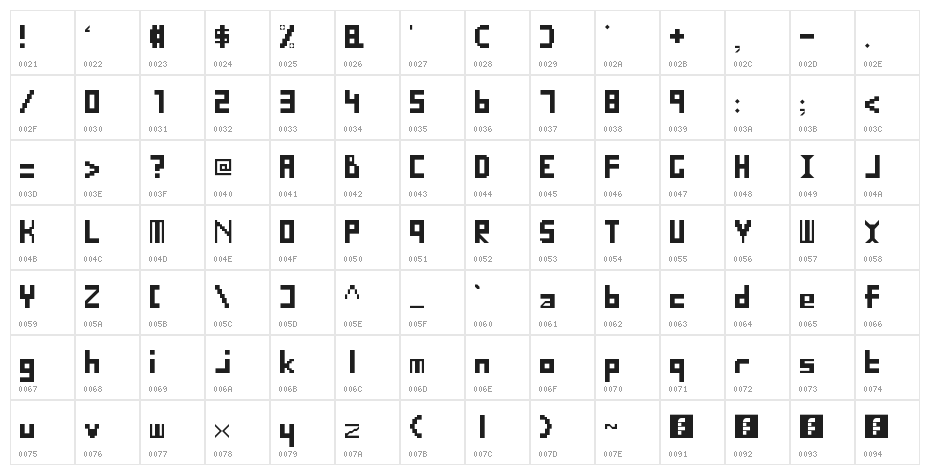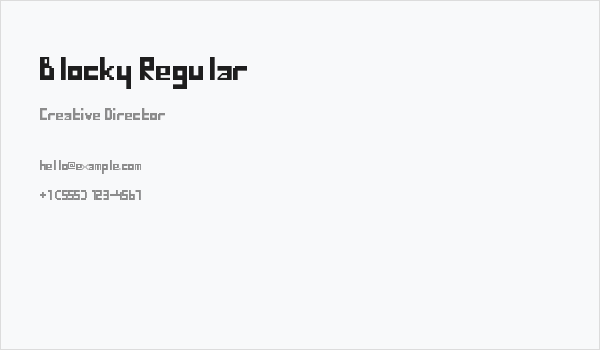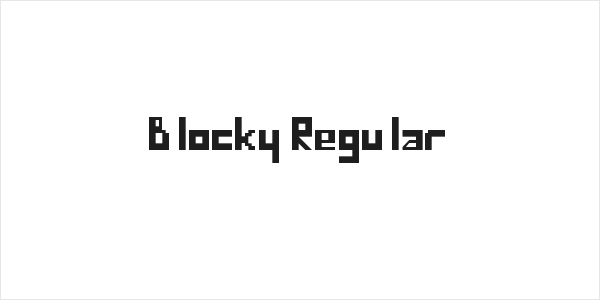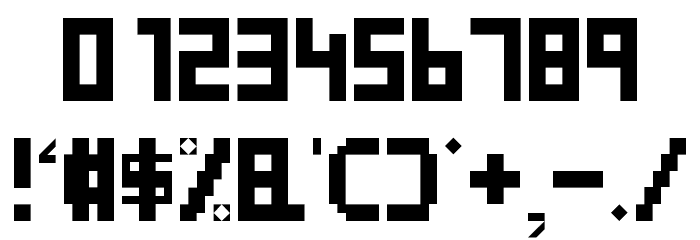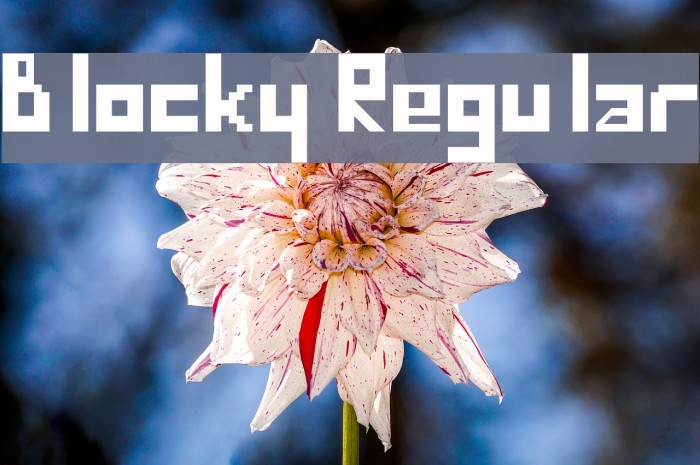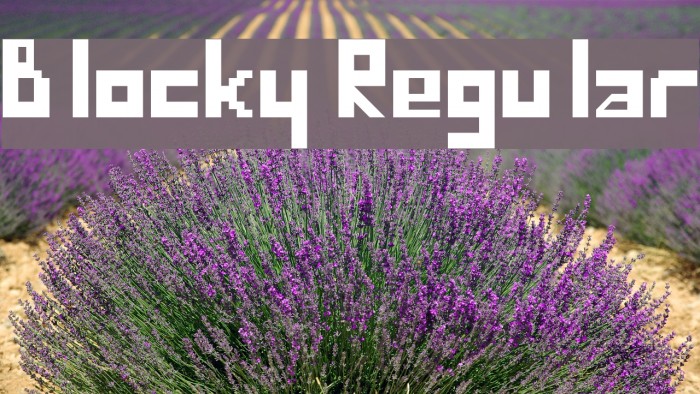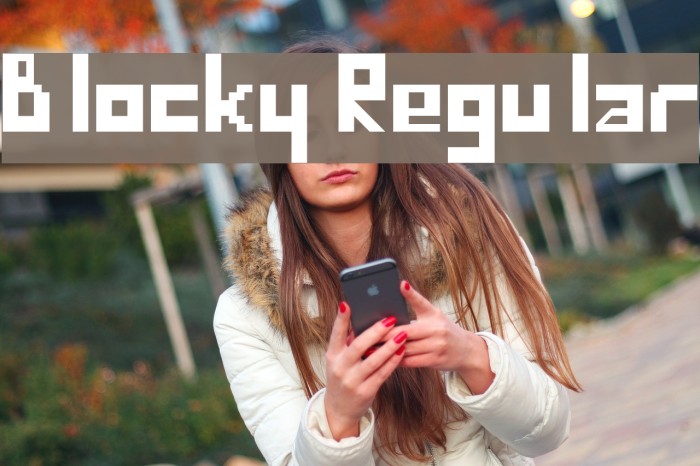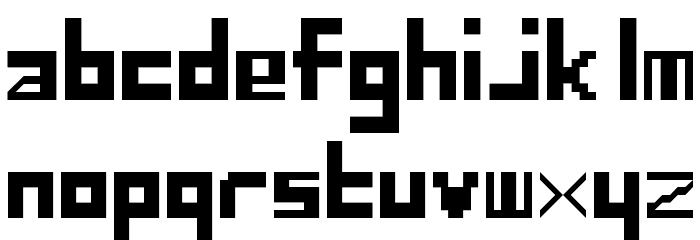
Blocky Regular Font
Blocky Regular Description
This font features a bold, geometric design with a distinctly pixelated aesthetic. Each character is constructed with sharp, angular lines and blocky shapes, reminiscent of early digital typography or retro video game graphics. The uppercase letters are uniform in height, while the lowercase letters maintain a consistent style with slightly reduced size. Numbers and special characters follow the same blocky pattern, ensuring a cohesive look across all glyphs. The font's unique style is both eye-catching and nostalgic, making it suitable for projects that aim to evoke a sense of digital or retro charm.
| Proposed Projects | Ideal for video game design, retro-themed posters, digital art projects, and tech-related branding. |